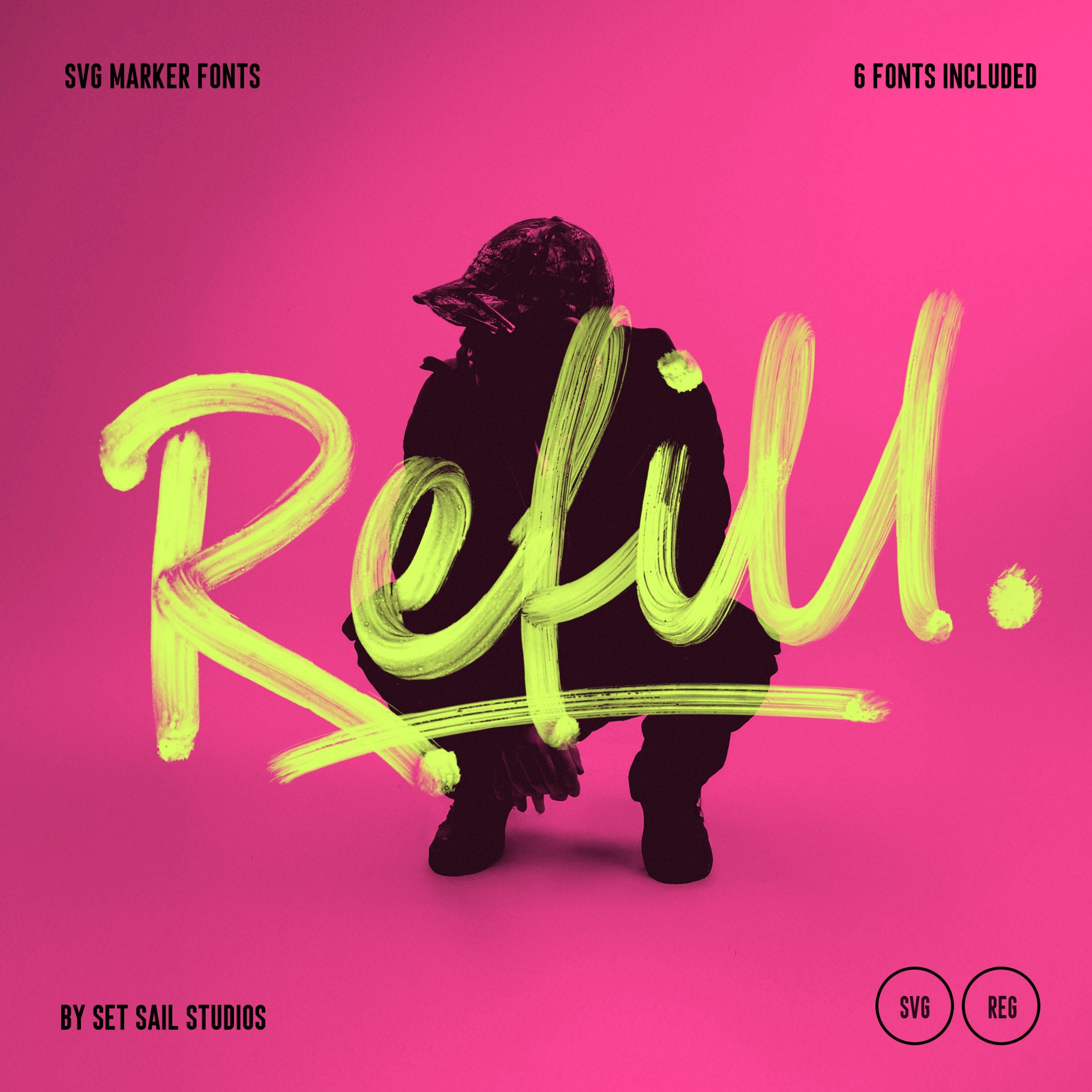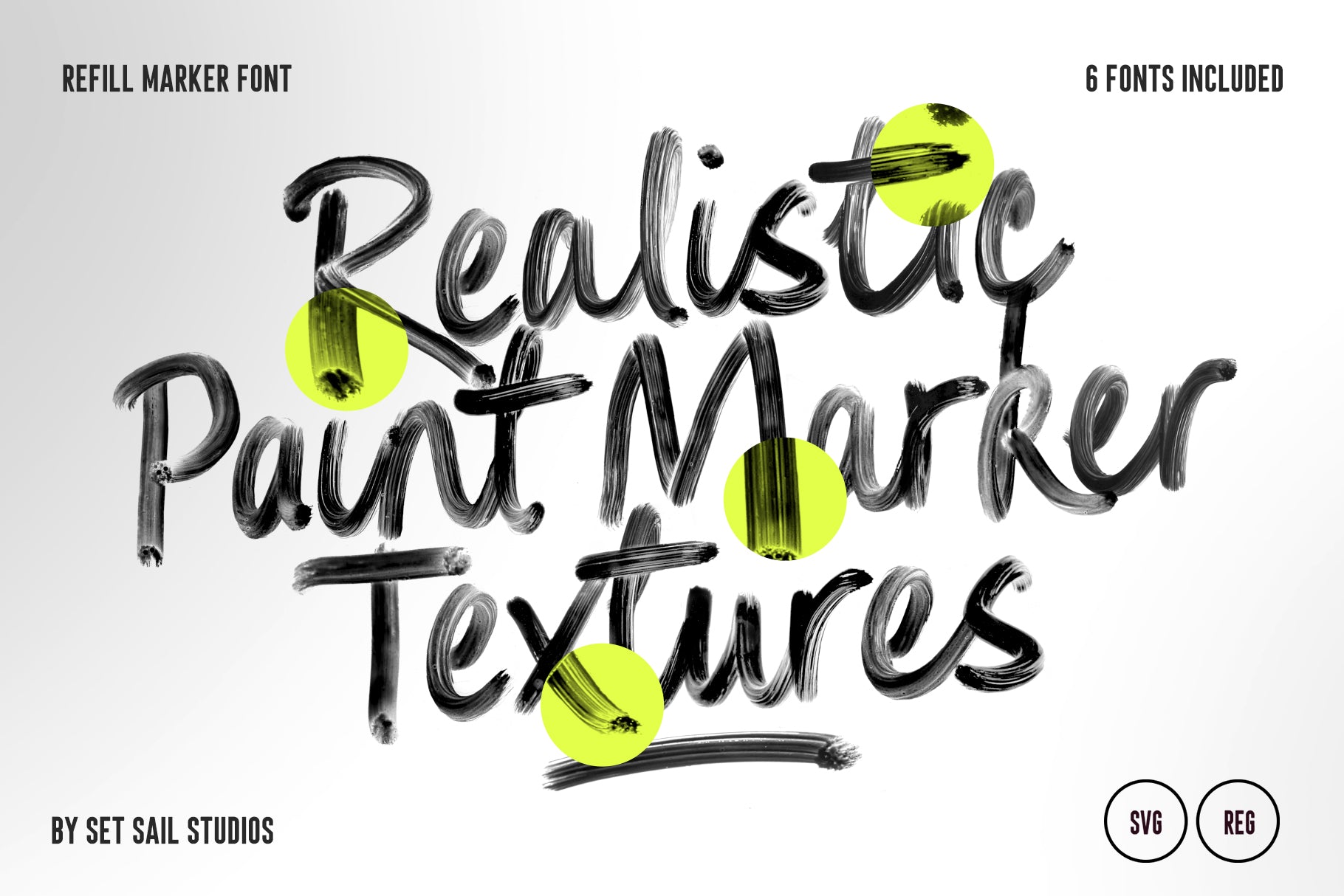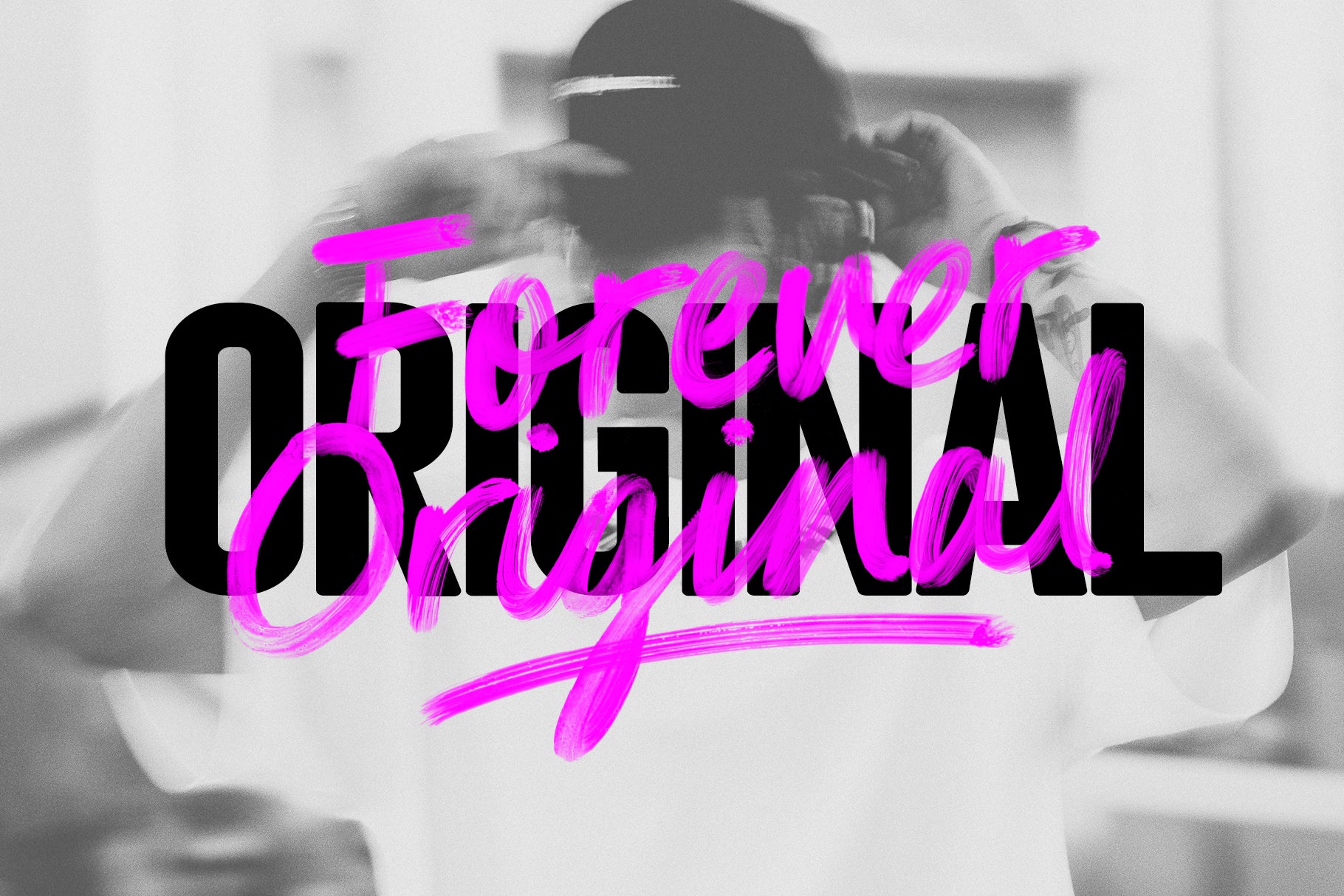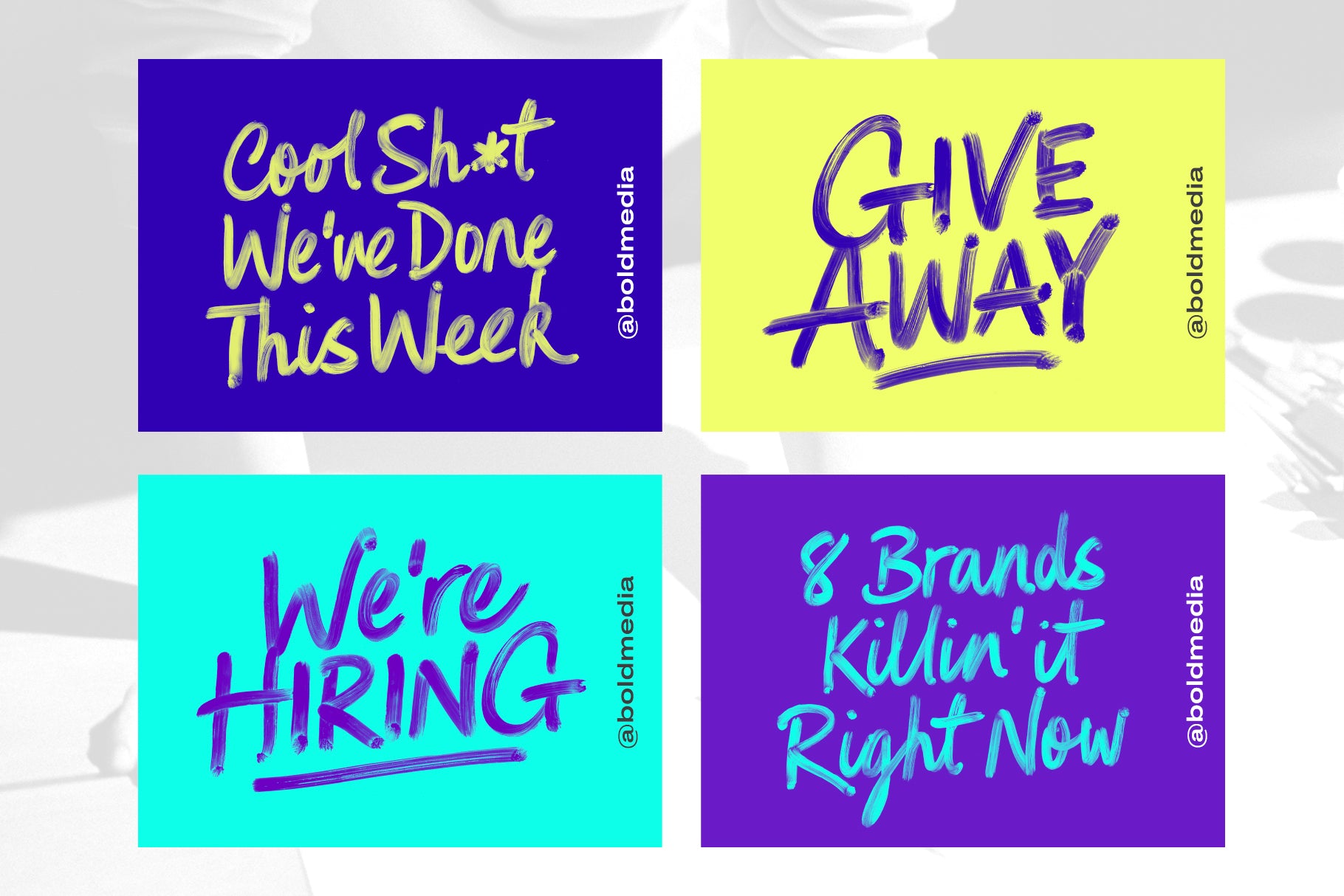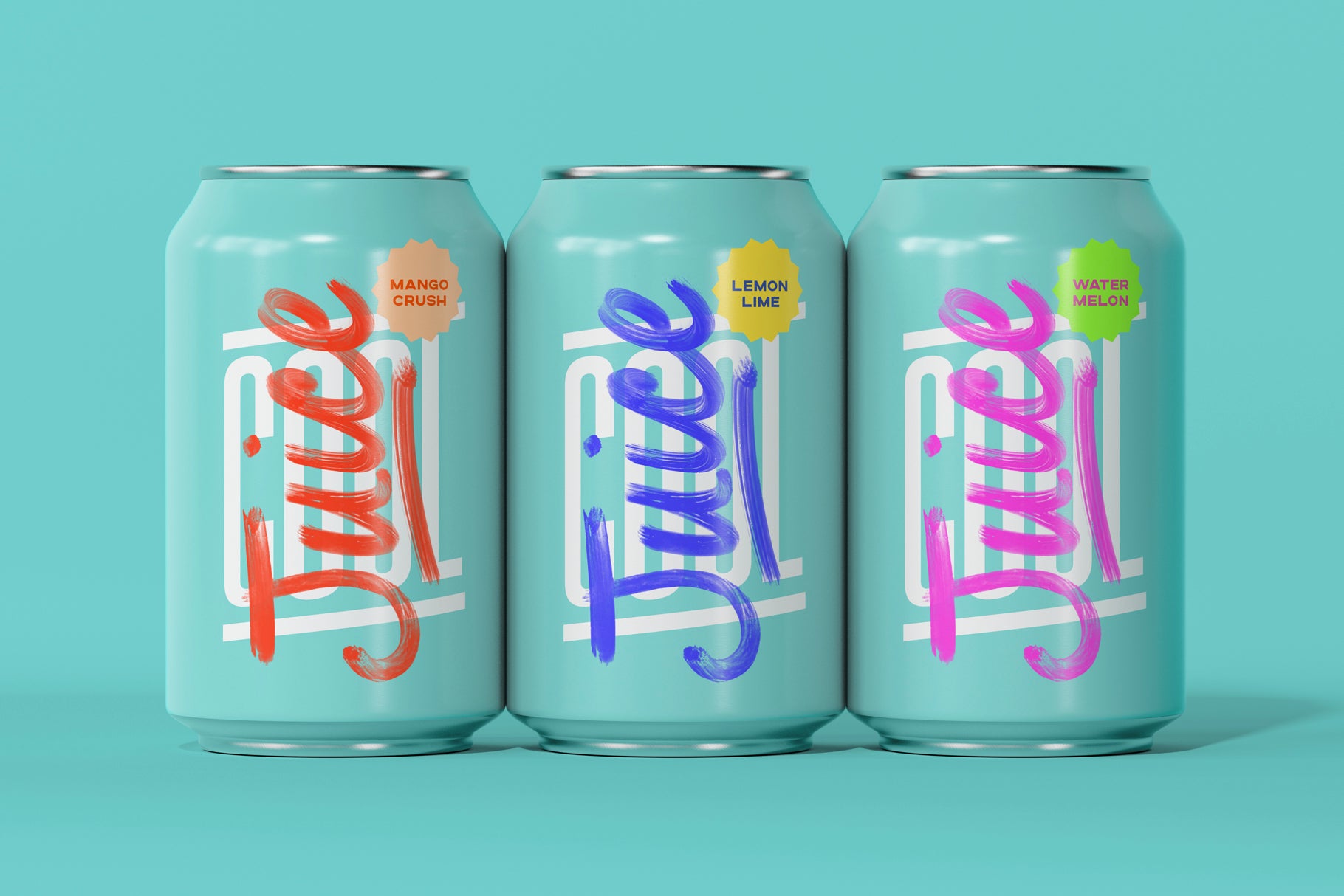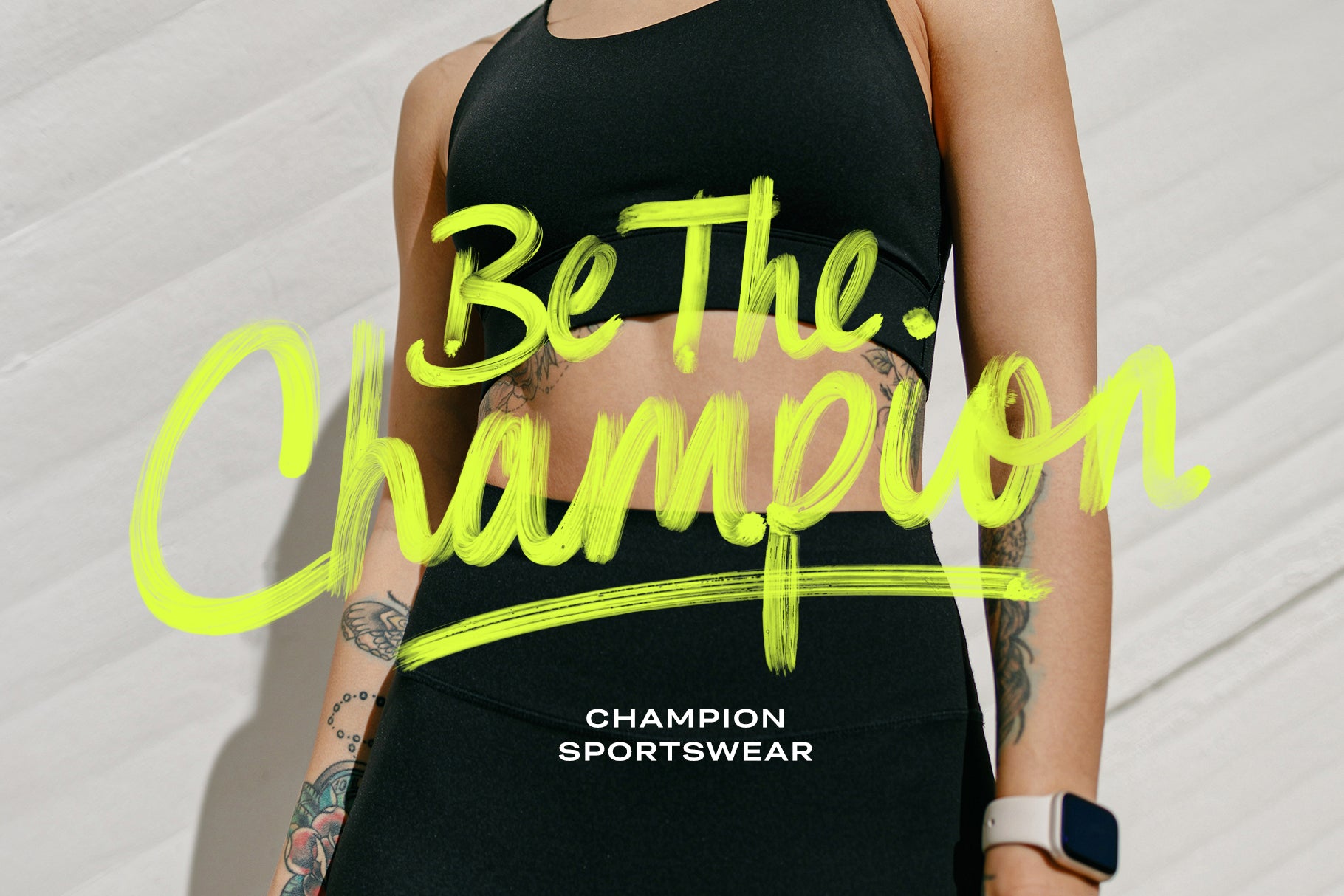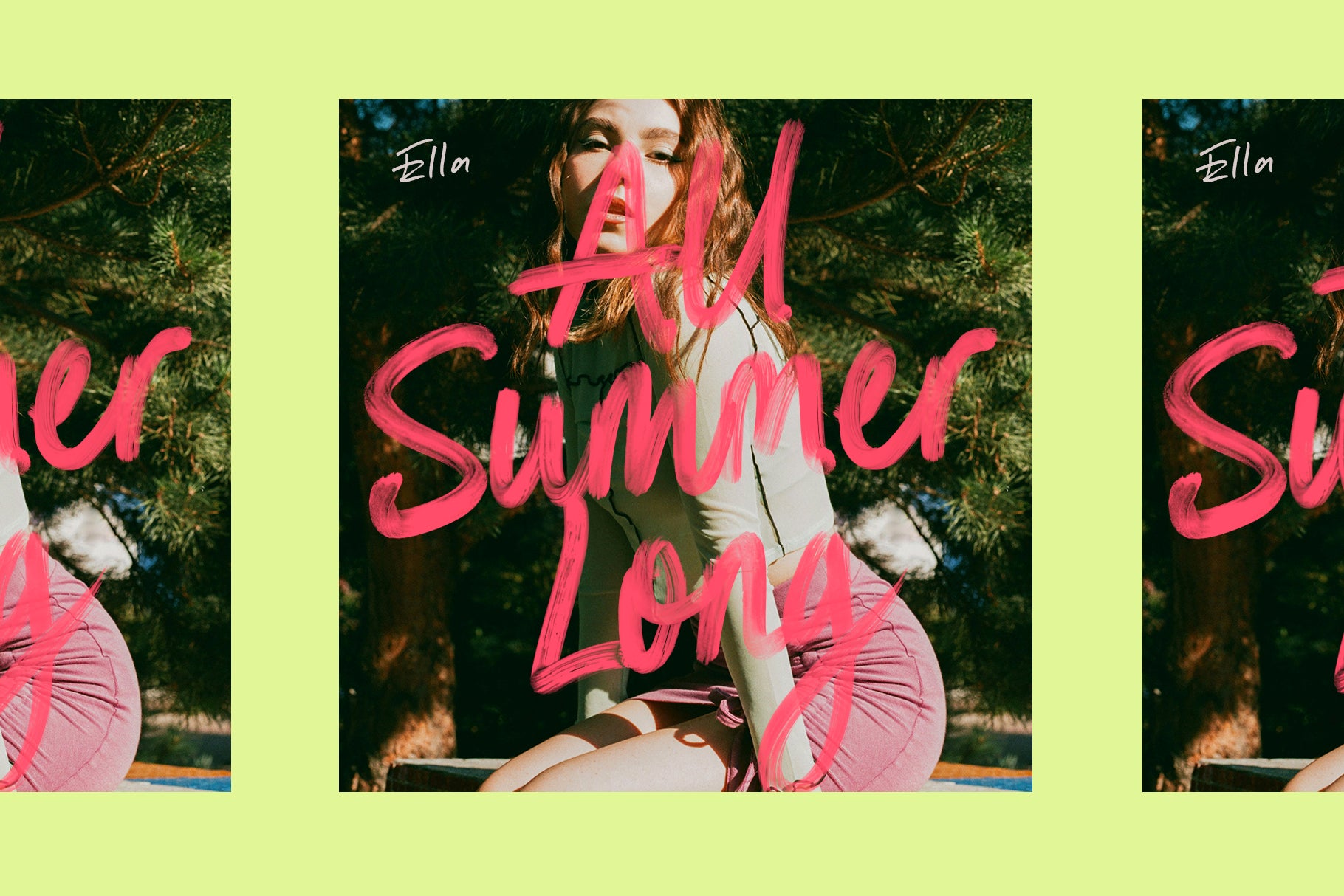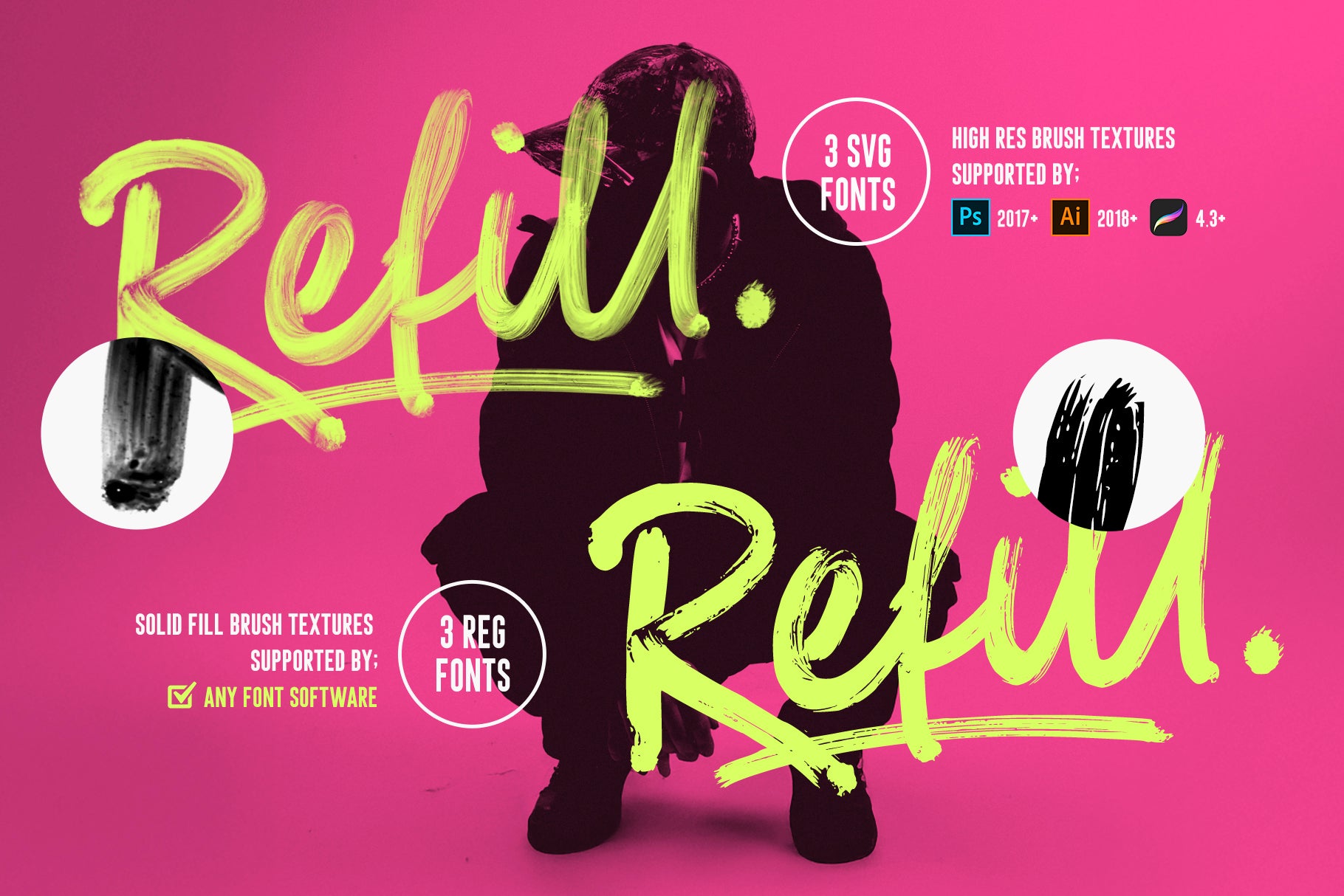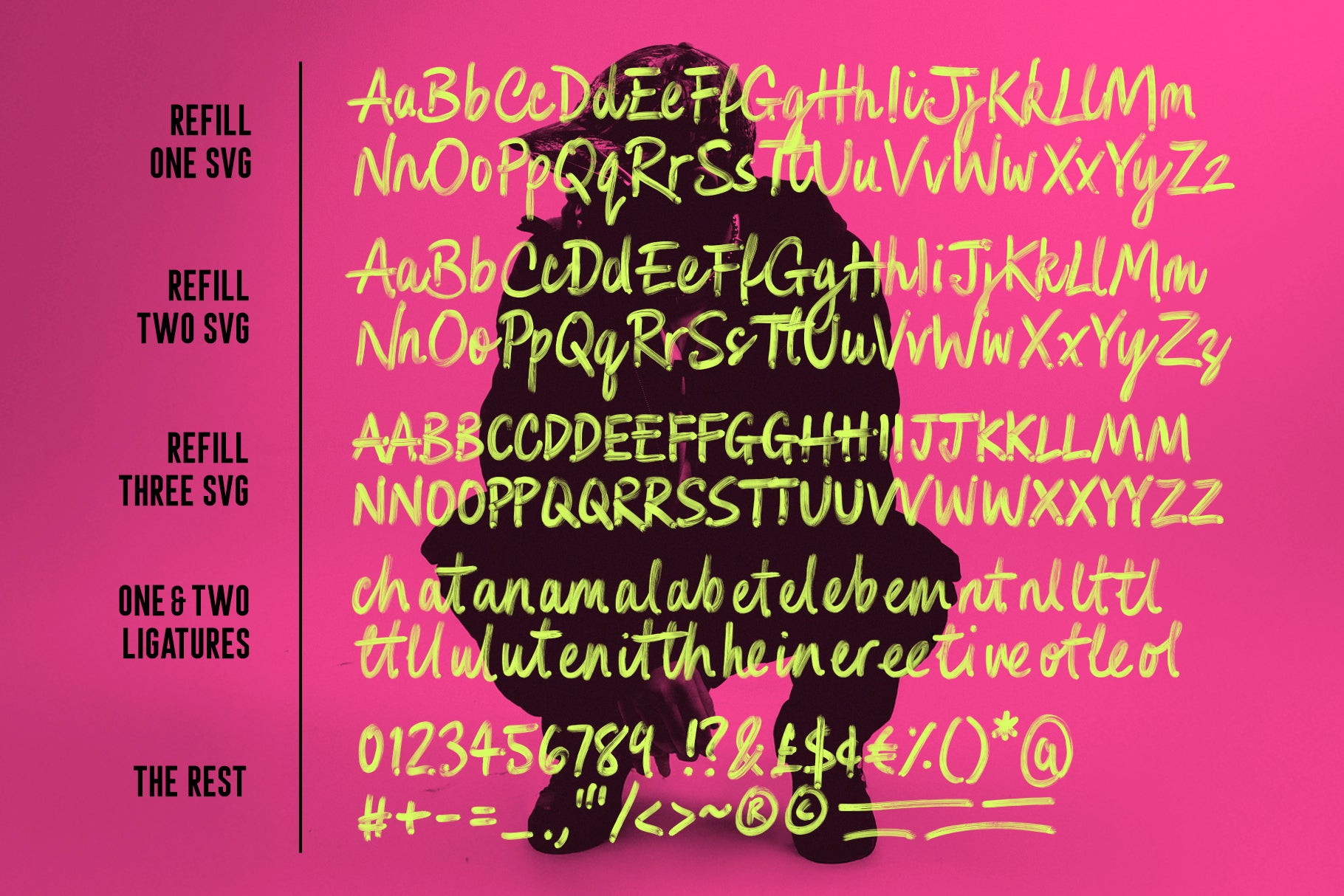
Refill SVG Marker Font Set
Introducing the Refill Marker Font! A hyper-realistic flowing brush font which was hand drawn using real paint-marker pens on a glossy laminate surface. That realism is achieved through the use of Opentype-SVG technology, which allows the inclusion of high resolution brush textures totally built-in to each letter as a transparency! Refill Marker font is the perfect choice for adding an exciting dynamism to your lettering with an unmistakably human touch.
Refill Marker Font includes 2 full sets of upper & lowercase fonts, as well as a 3rd set of smaller uppercase lettering - perfect for when you want to only use all-caps. All fonts are designed to be mixed and match, giving you 6 variations of each letter for you to experiment with - allowing you to create truly custom looking lettering in a flash. There are also 30 lowercase ligatures included, which are uniquely designed pairings of letters which flow more naturally and offer even more customisation options. All 3 fonts are also included in a Regular variation for wider software compatibility, giving you a total of 6 fonts to experiment with.
The Refill SVG Marker Font Set includes a hyper-realistic brush font created from hand-drawn letters using paint-marker pens, featuring Opentype-SVG technology for high-resolution textures. It offers two full sets of upper and lowercase fonts, a smaller uppercase set, 30 lowercase ligatures, and is compatible with traditional font formats for broader software support, totaling six fonts for customization.